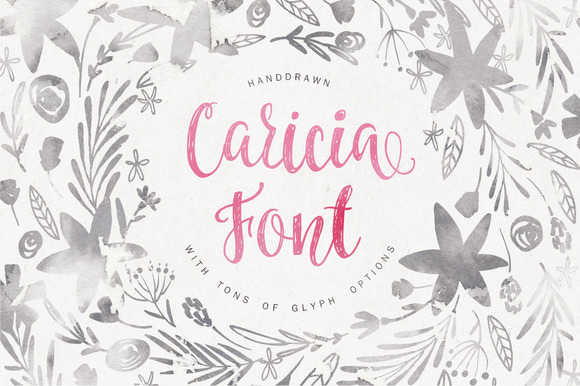
Discover the Elegance of Caricia Font: A Gently Feminine Typeface by Favete Art
In the world of typography, few fonts manage to capture the essence of femininity and elegance as beautifully as Caricia Font. Created by Favete Art, Caricia is a gently feminine typeface that has been making waves in the design community for its unique charm and versatility. In this article, we’ll delve into the world of Caricia Font, exploring its features, uses, and what makes it a must-have for designers and crafters alike.
The Birth of Caricia Font
Caricia Font is the brainchild of Favete Art, a creative studio known for its passion for typography and design. The team at Favete Art aimed to create a font that embodies the softness and delicacy often associated with femininity, without compromising on readability or style. The result is Caricia, a typeface that exudes warmth, elegance, and a touch of playfulness.
Key Features of Caricia Font
So, what makes Caricia Font stand out from the crowd? Here are some of its key features:
- Gently Feminine Curves: Caricia’s letters are characterized by smooth, flowing curves that give the font its distinctly feminine touch. These curves add a level of sophistication and elegance to any design.
- High Readability: Despite its delicate appearance, Caricia Font boasts high readability, making it suitable for a wide range of applications, from body text to headings.
- Versatility: Caricia comes in various weights and styles, allowing designers to experiment with different looks and moods. Whether you’re creating a whimsical craft project or a sleek branding campaign, Caricia has got you covered.
- Open-Type Features: As an Open-Type font, Caricia supports advanced typographic features such as ligatures, swashes, and stylistic alternates, giving designers more creative freedom.
Uses of Caricia Font
Caricia Font’s versatility makes it a valuable asset for various design projects. Here are some popular uses:
- Branding and Logos: Caricia’s elegant curves make it perfect for creating sophisticated brand identities, especially for businesses in the beauty, fashion, and lifestyle sectors.
- Wedding and Event Design: The font’s romantic and whimsical feel makes it a top choice for wedding invitations, stationery, and event branding.
- Packaging Design: Caricia can add a touch of luxury and femininity to product packaging, making it stand out on store shelves.
- Digital Content: From blog headers to social media graphics, Caricia Font can elevate your digital content with its unique charm.
Tips for Using Caricia Font
To get the most out of Caricia Font, here are some tips:
- Mix and Match: Experiment with different weights and styles to create visual hierarchy and add depth to your designs.
- Pair it Right: Caricia looks great with both serif and sans-serif fonts. Try pairing it with contrasting fonts to create striking combinations.
- Play with Open-Type Features: Take advantage of Caricia’s Open-Type features to add unique touches to your designs.
Caricia Font by Favete Art is a beautifully crafted typeface that brings a touch of elegance and femininity to any design project. Its versatility, readability, and range of features make it a valuable asset for designers and crafters looking to create stunning visuals. Whether you’re working on a branding campaign, wedding invitation, or digital content, Caricia Font is sure to impress. So why not give Caricia a try and discover the magic of this gently feminine typeface for yourself?